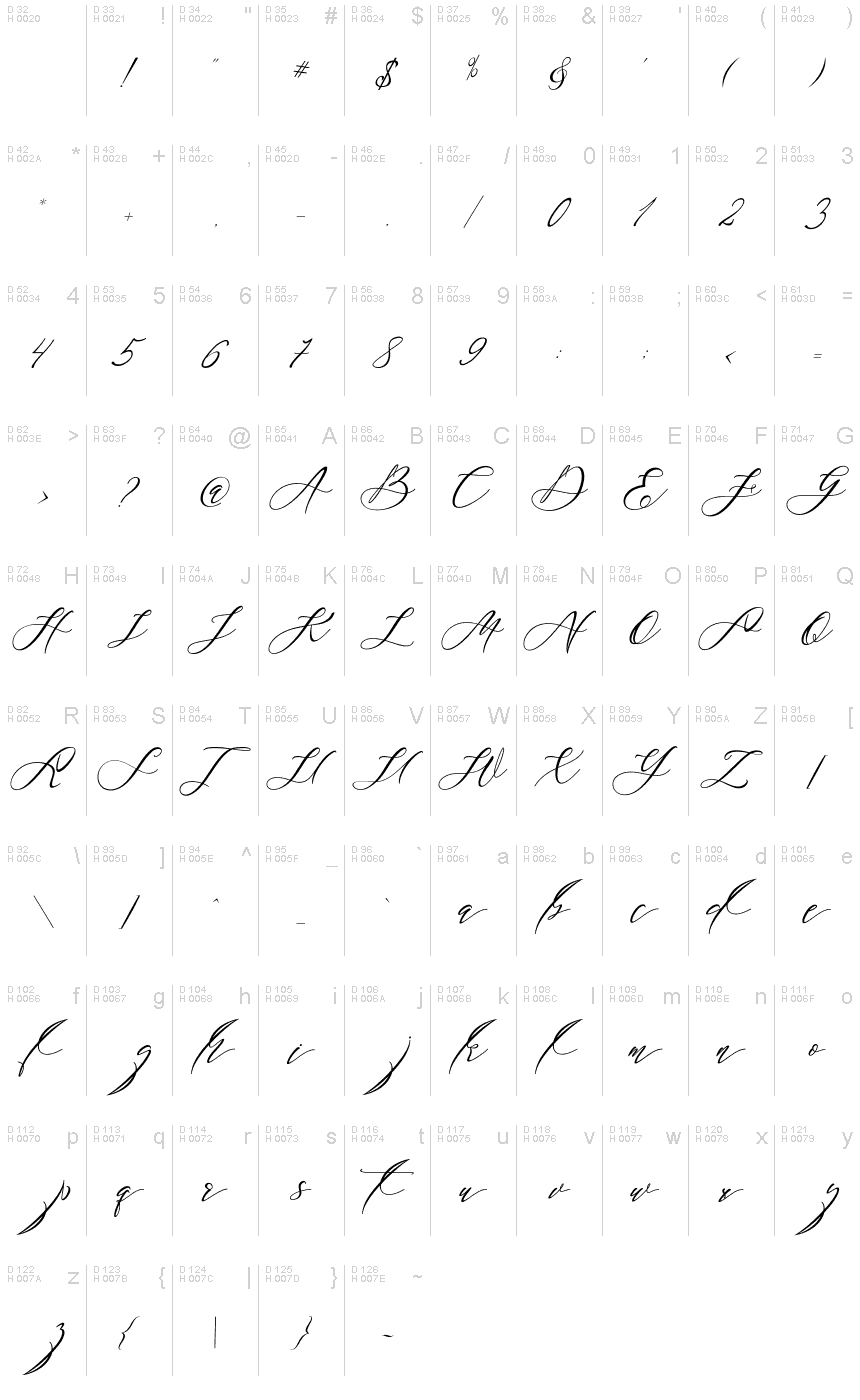
Blackthise
Black Thise is a charming semi-light calligraphy font designed by khairul. Its elegant strokes and curves make it perfect for wedding invitations, branding, logos, and more. The font's airy weight adds a touch of whimsy to any project while maintaining its sophistication. Use Black Thise on your next project to add a touch of elegance that will leave a lasting impression. Whether you're designing an elegant menu for a fine-dining restaurant or creating romantic wedding invitations, Black Thise is the perfect semi-light calligraphy font for any occasion.